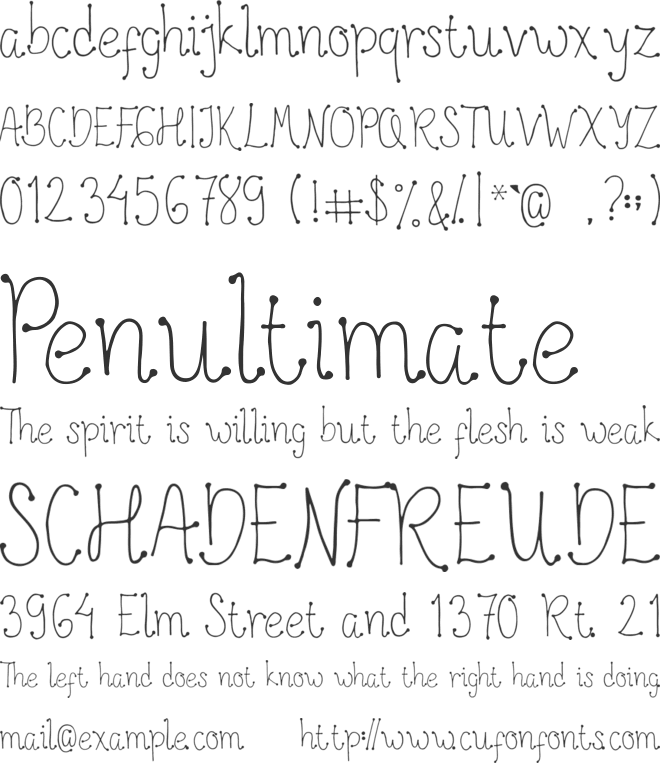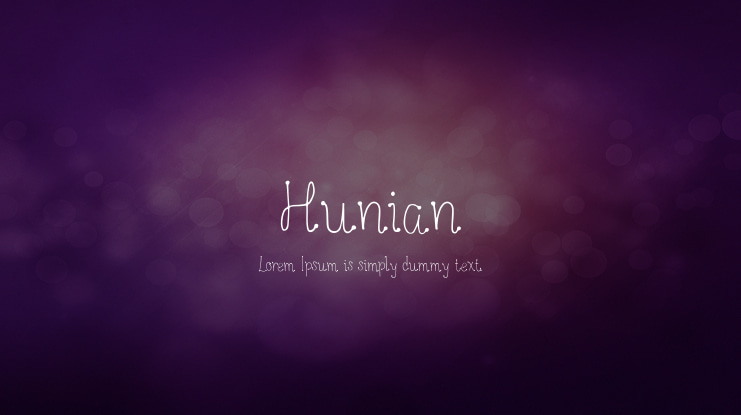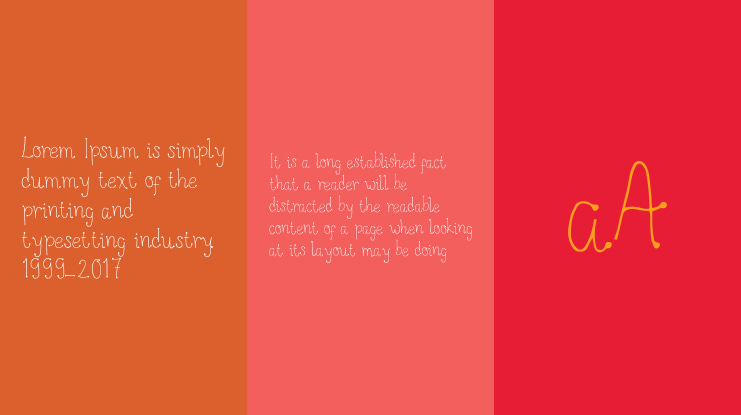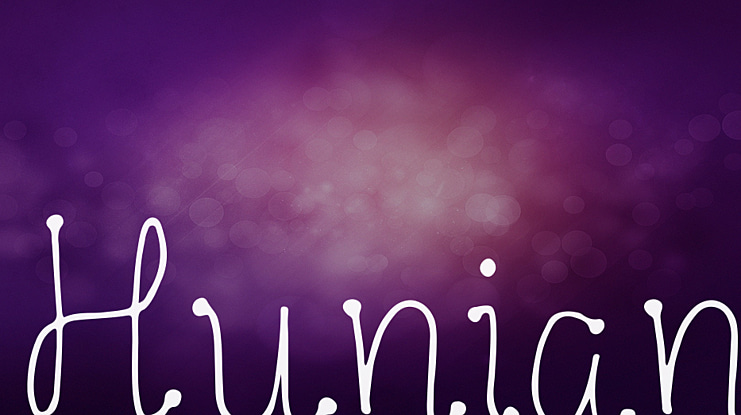
Hunian Font
Khairil Anwar
Hunian is a hand drawn display typeface, curved in a unique and special way to complement your creative projects.
Hunian Font perfect uses for branding, poster, logotype, greeting cards, invitation, social media posts, formal or non formal event, advertisement, and many more. Let your imagination run free!